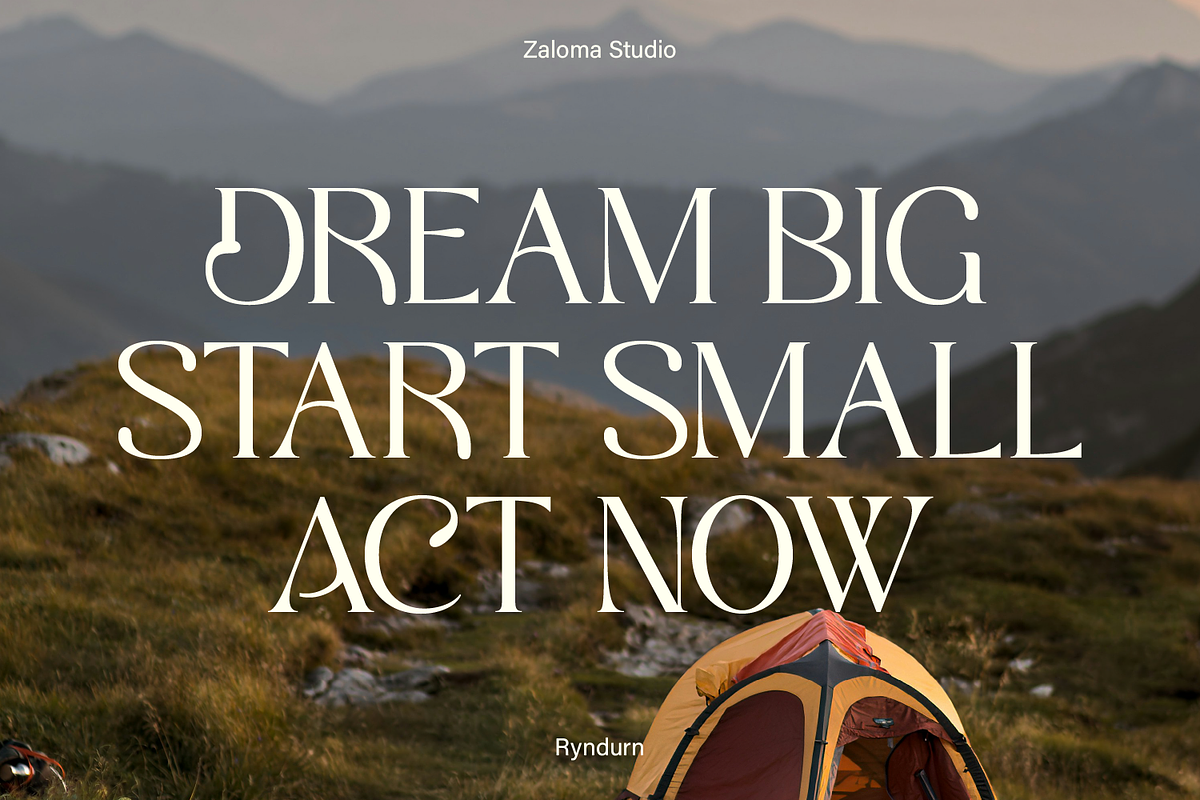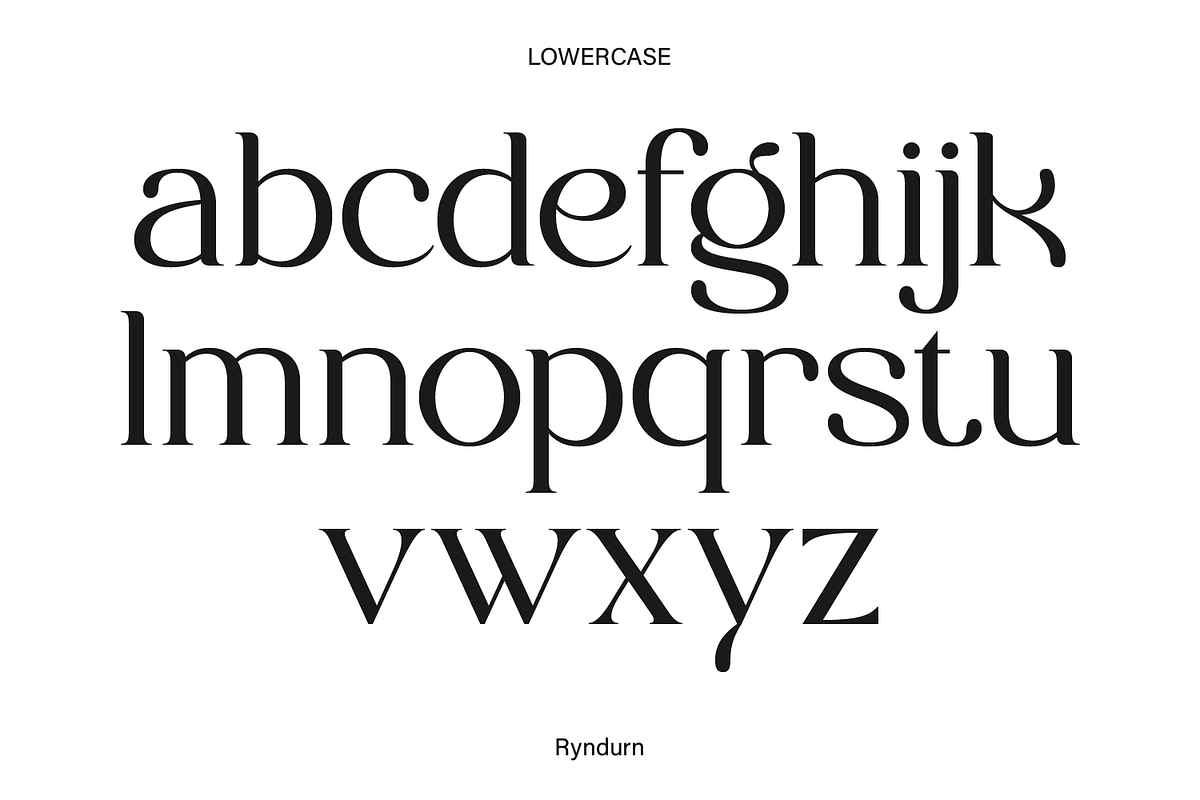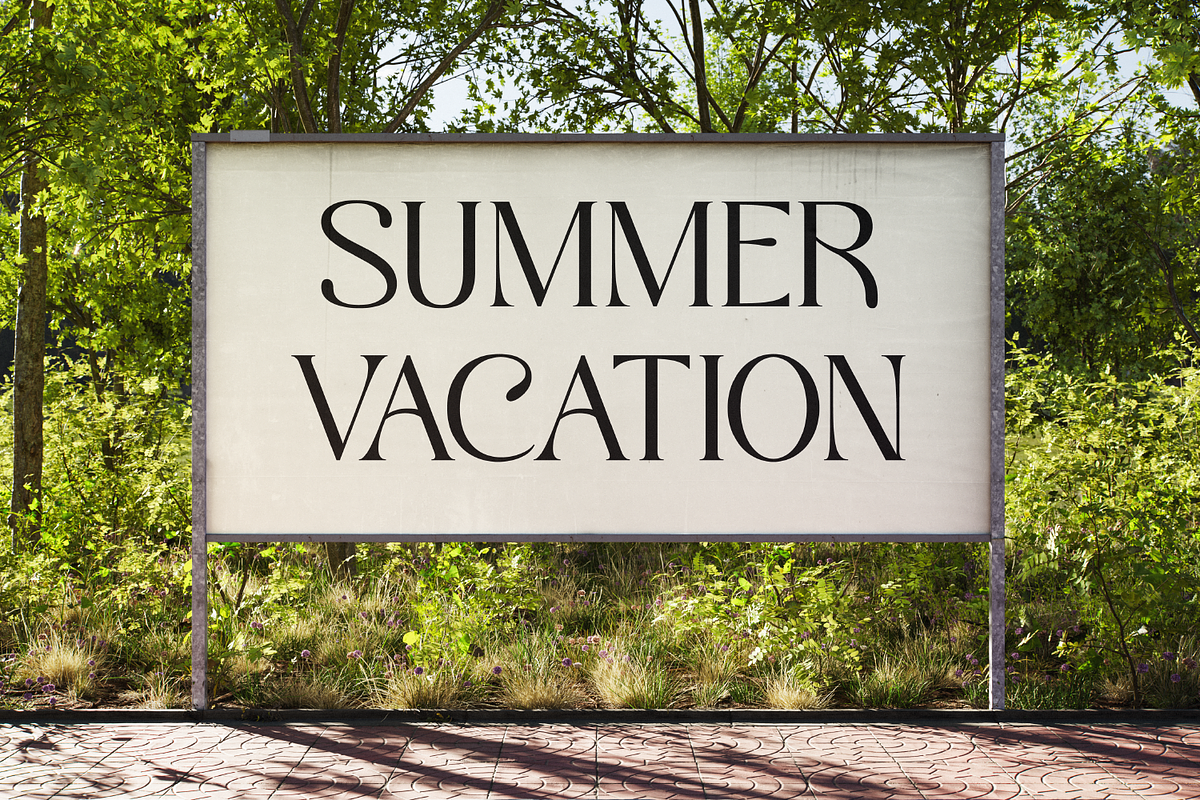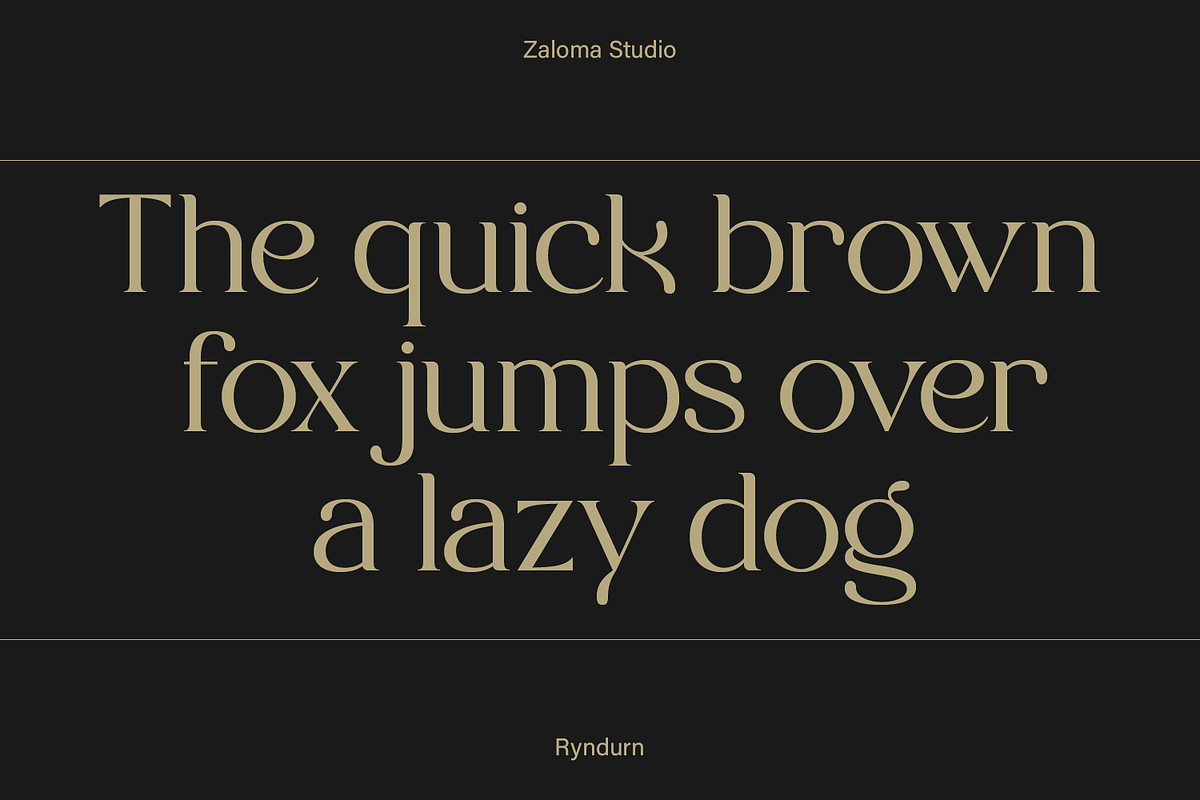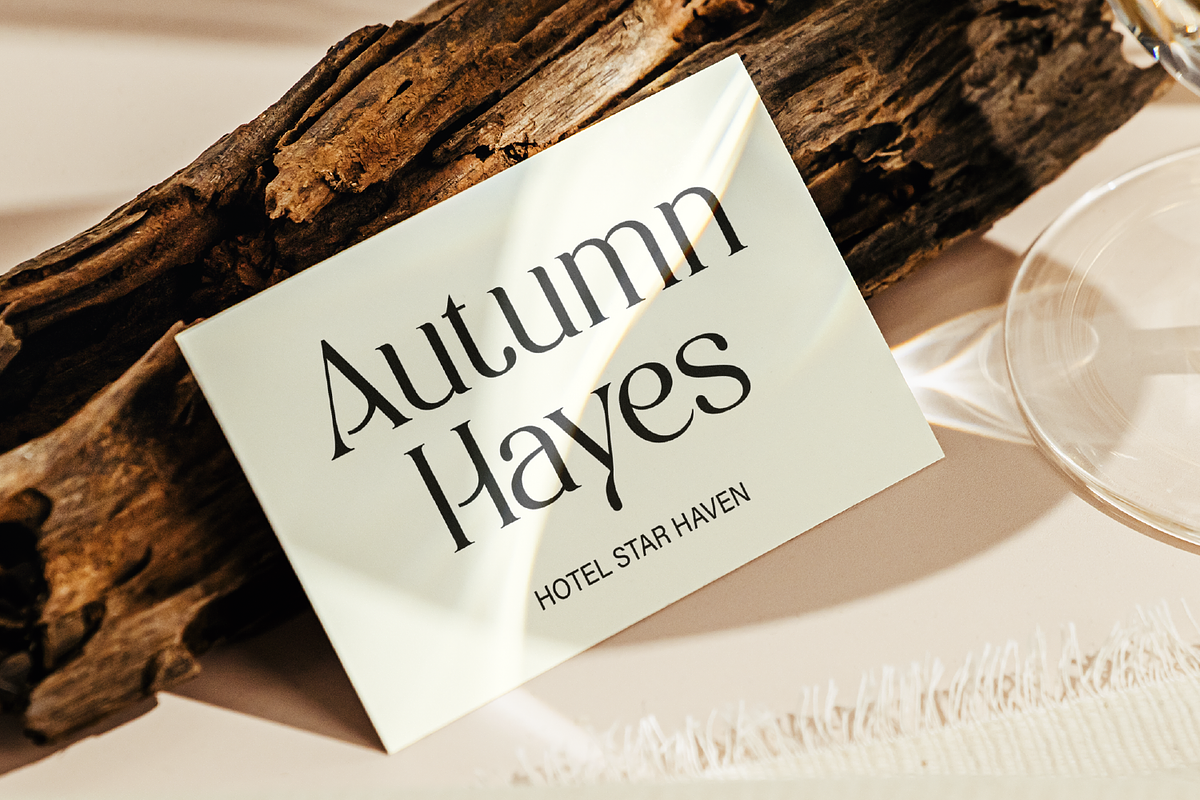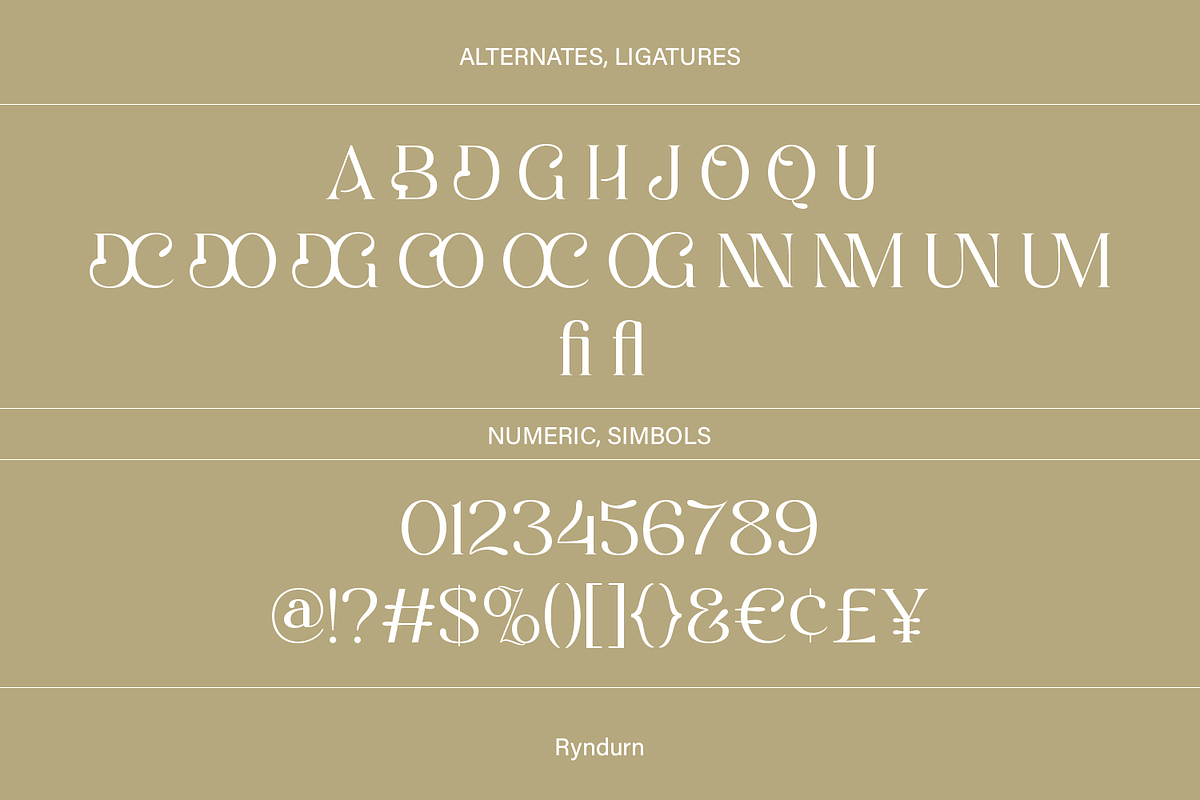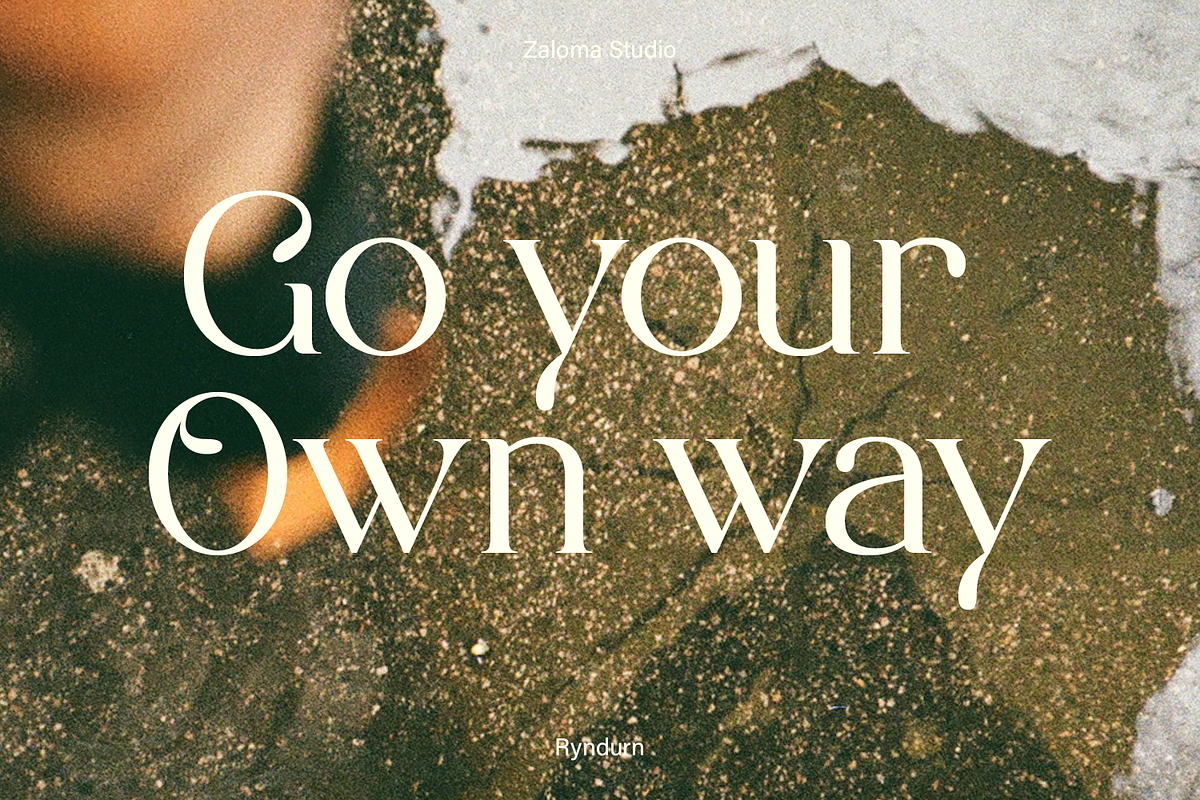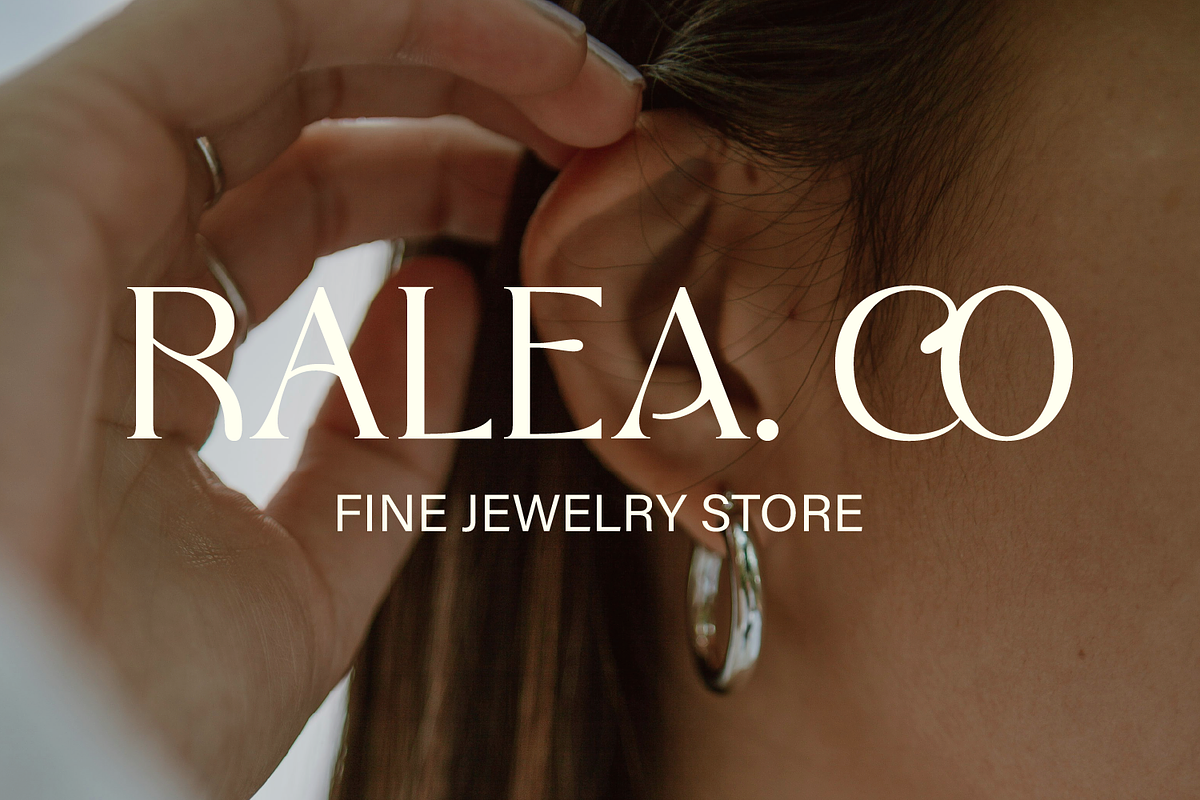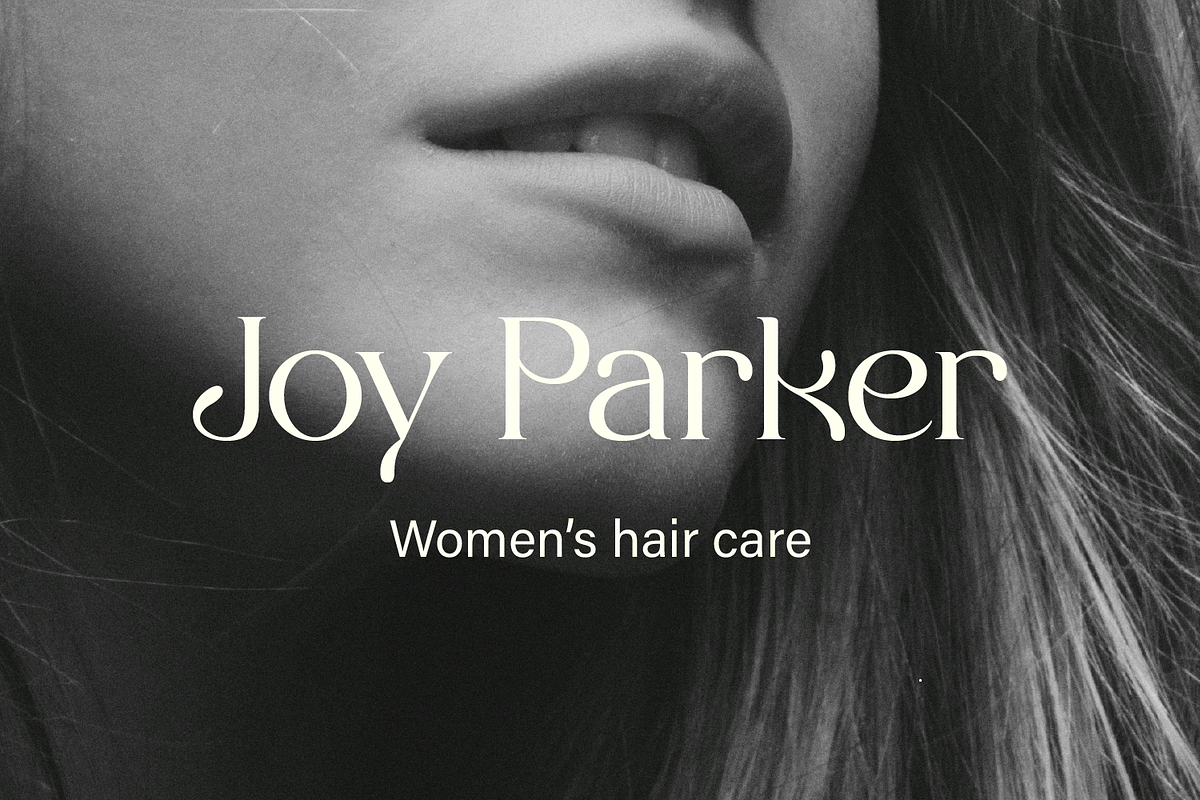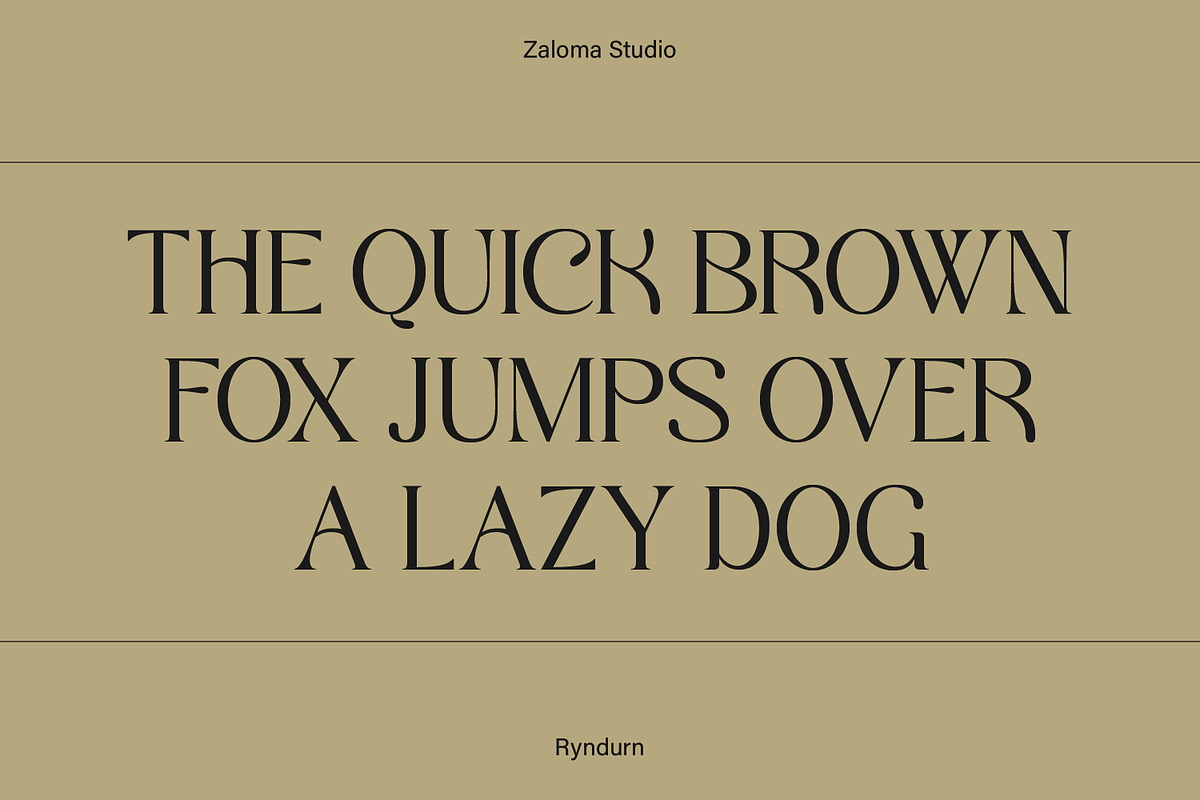
Ryndurn
Ryndurn is a modern serif display font with an elegant and luxurious feel. Designed with high contrast, smooth curves, and distinctive character shapes, Ryndurn is perfect for branding, editorials, logos, and classic-contemporary designs. Ideal for creating a strong and sophisticated visual impression.